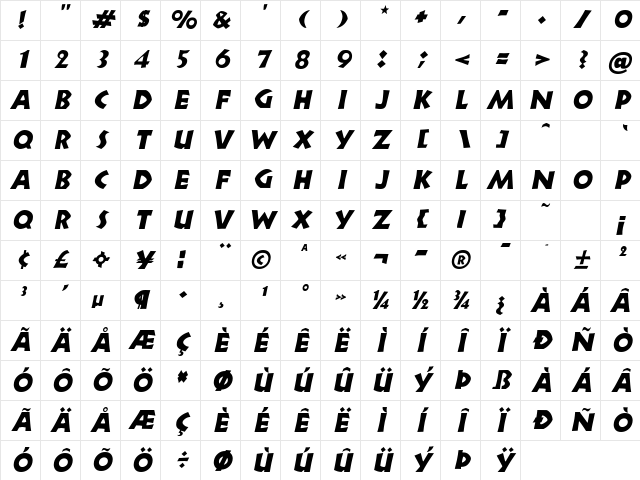
Zorba Italic
Complete Zorba Italic glyph index. Displaying only characters natively supported by Zorba Italic font.
Design Context for Zorba
Zorba is a composed and adaptable typeface that performs quietly and consistently across a wide range of design contexts. The slanted form adds forward momentum and visual energy.
Pro Tip: Use Zorba for emphasis, pull quotes, and subheadings where its slanted energy can add rhythm to the layout.